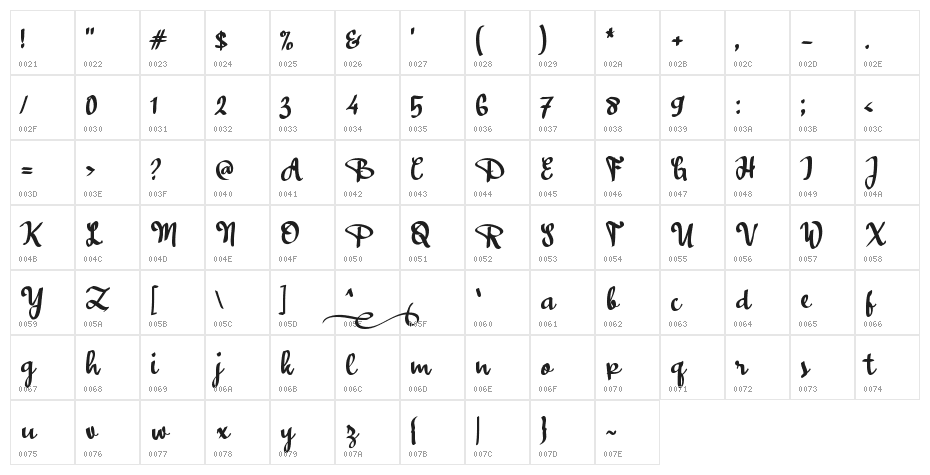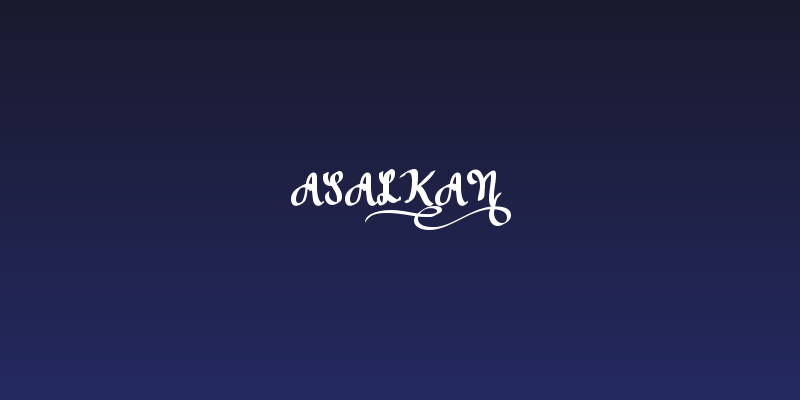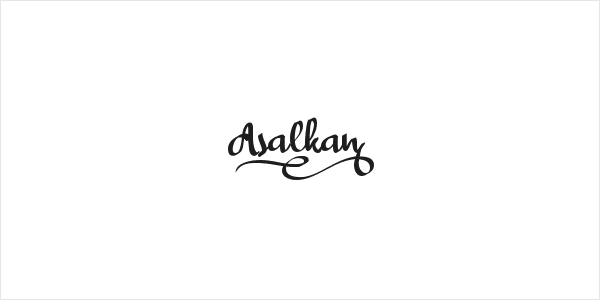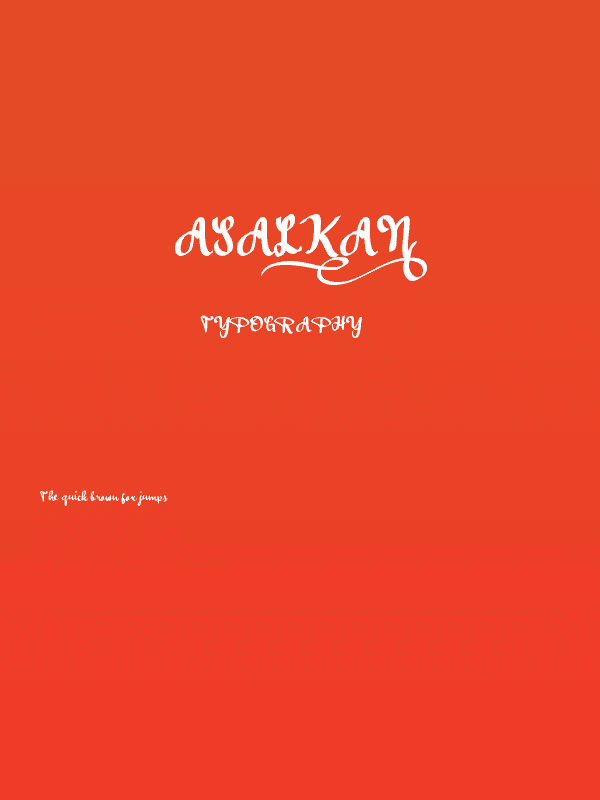
Asalkan_ Font
Asalkan_ Description
This font exudes a playful and artistic vibe with its bold, flowing script style. The characters are crafted with a sense of movement and flair, featuring smooth curves and a handwritten appearance. The uppercase letters are particularly expressive, with unique flourishes that give each character a distinct personality. The lowercase letters maintain a consistent style, complementing the uppercase with their rounded forms and elegant loops. Numbers and special characters are designed to match the overall aesthetic, ensuring a cohesive look across all text. This font is ideal for projects that require a personal touch, such as invitations, greeting cards, or branding materials that aim to convey creativity and warmth.
| Proposed Projects | Ideal for invitations, greeting cards, and creative branding materials. |